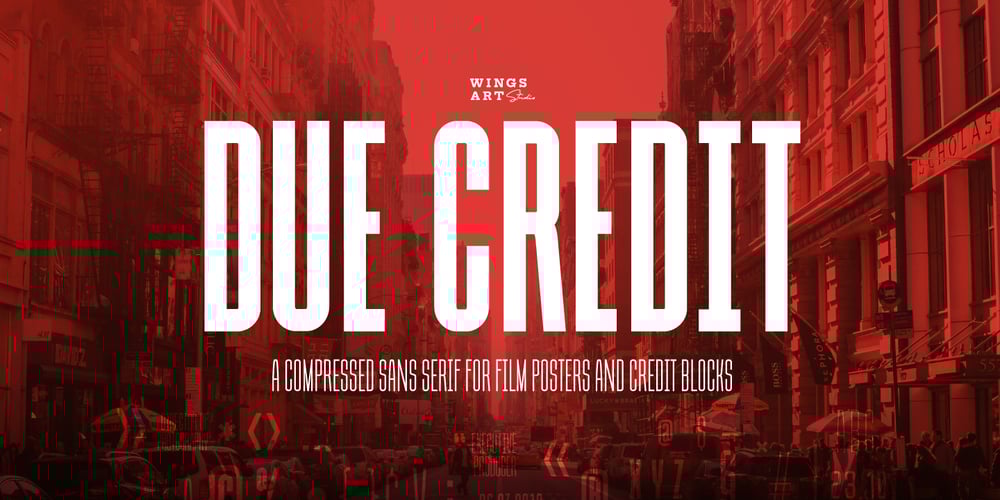
Due Credit Font Family was designed by Christopher King and published by Wing’s Art Studio. Due Credit contains 9 styles and family package options. A versatile compressed font for film posters, credit blocks and trailers, Due Credit is a display font specifically designed for the film and television industry. A versatile typeface that’s suitable for bold headline titles and small credit blocks, with an additional horror genre inspired extra style. Watch Due Credit in action in this showreel: https://youtu.be/2XeoqG17wo8 Contents: Due Credit Version One and Two Uppercase Characters Lowercase Capitals Light, Regular, Bold and Extra Bold Weights Additional Cast and Crew Glyphs (simply drop in crew titles in one click) Additional “Horror” genre style with Alternatives